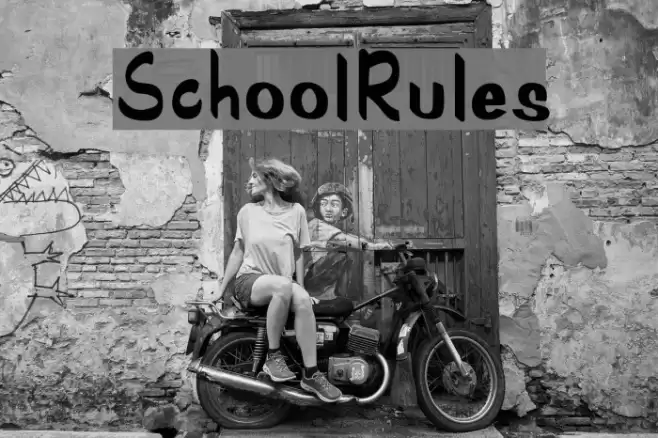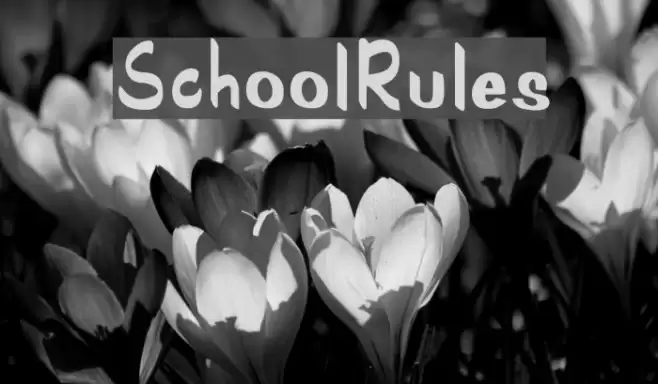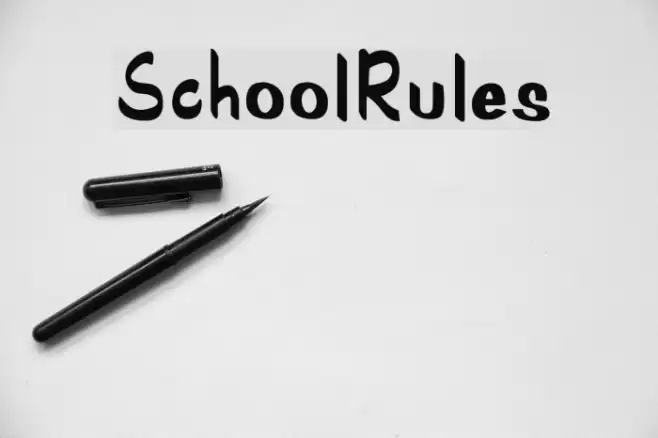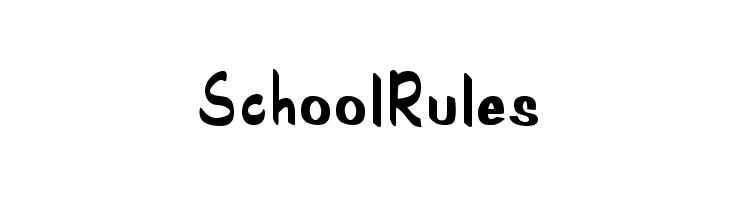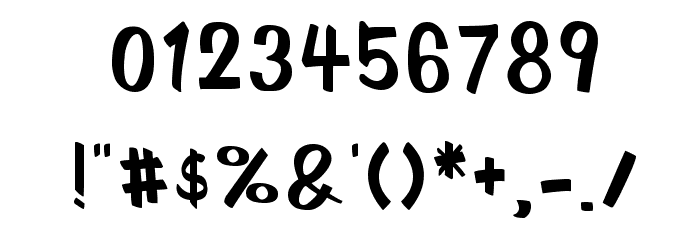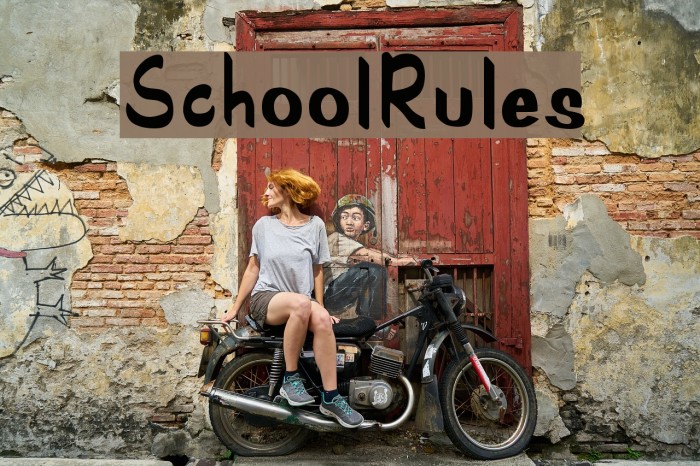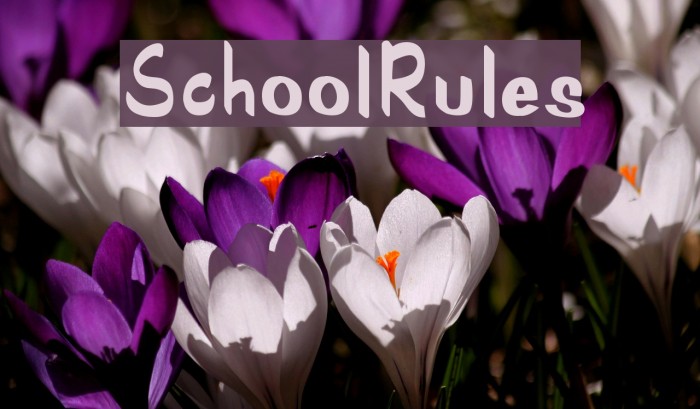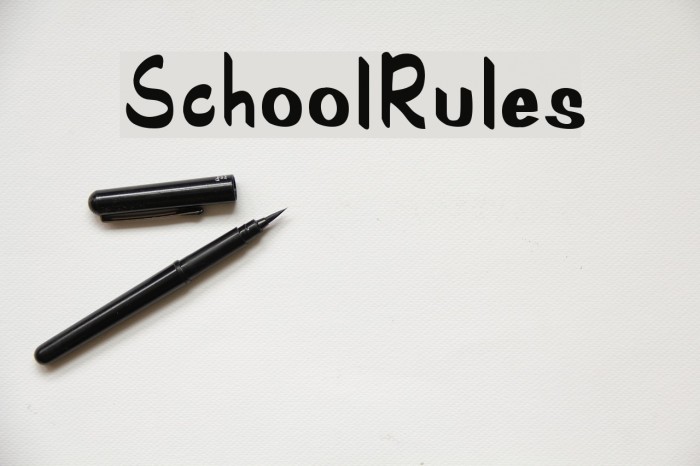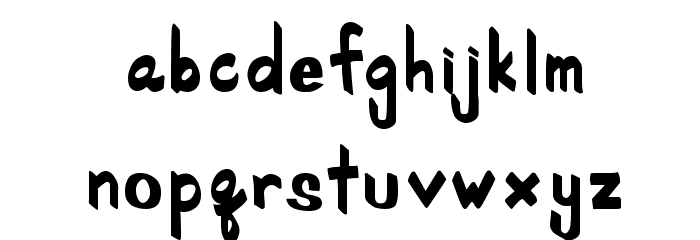
SchoolRules Font
SchoolRules Description
This font exudes a playful and informal vibe, reminiscent of handwriting with a touch of whimsy. The characters are bold and slightly irregular, giving them a lively and dynamic appearance. The uppercase letters are robust and stand out with their thick strokes, while the lowercase letters maintain a consistent style with a slightly more relaxed form. Numbers and special characters follow the same playful design, making the font versatile for various creative applications. The overall look is friendly and approachable, perfect for projects that require a casual and fun aesthetic.
A playful, handwritten-style font with bold, irregular strokes from Uncategorized fonts.
- Proposed Projects: Ideal for children's books, educational materials, playful branding, and casual invitations.
- Overall Style: Casual
- Use Case: Headlines, Logos, Informal Text